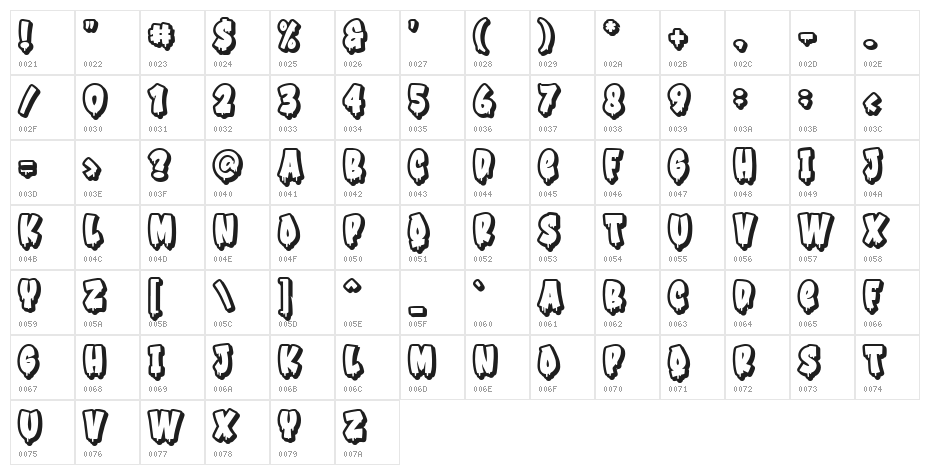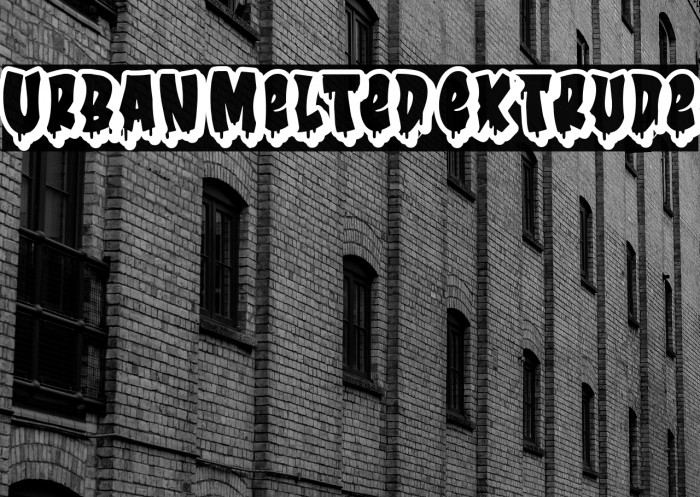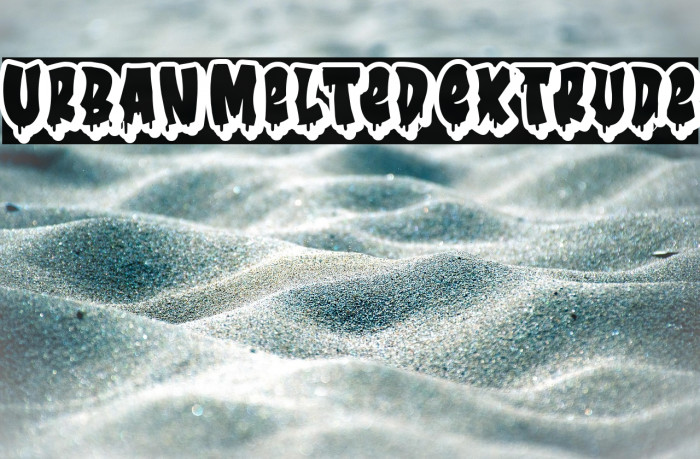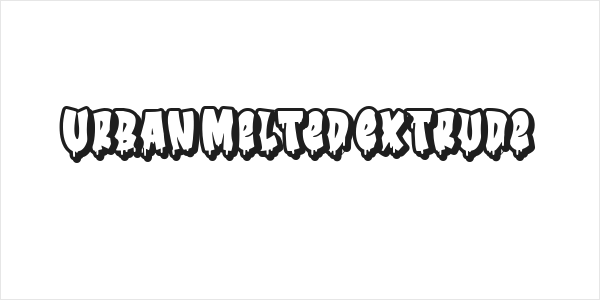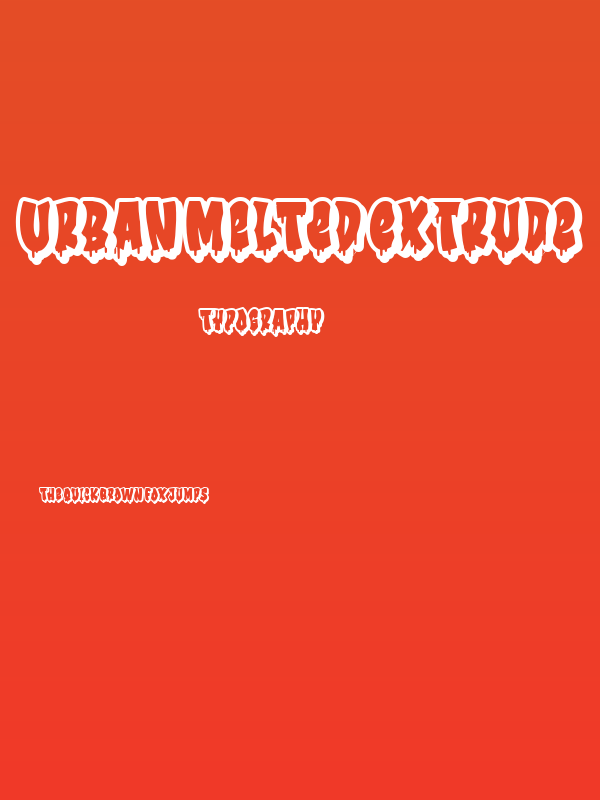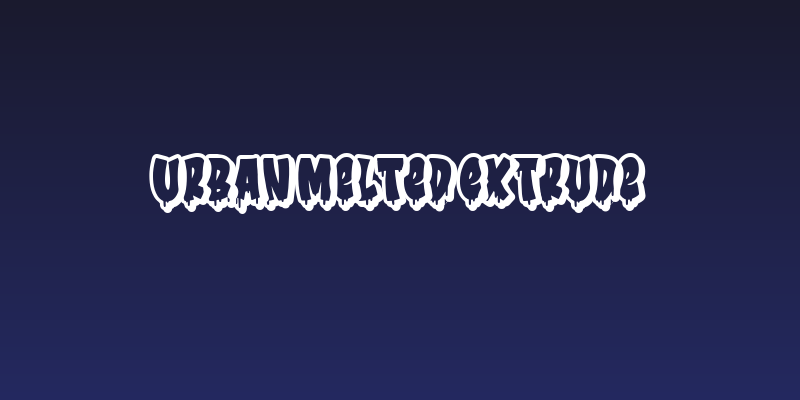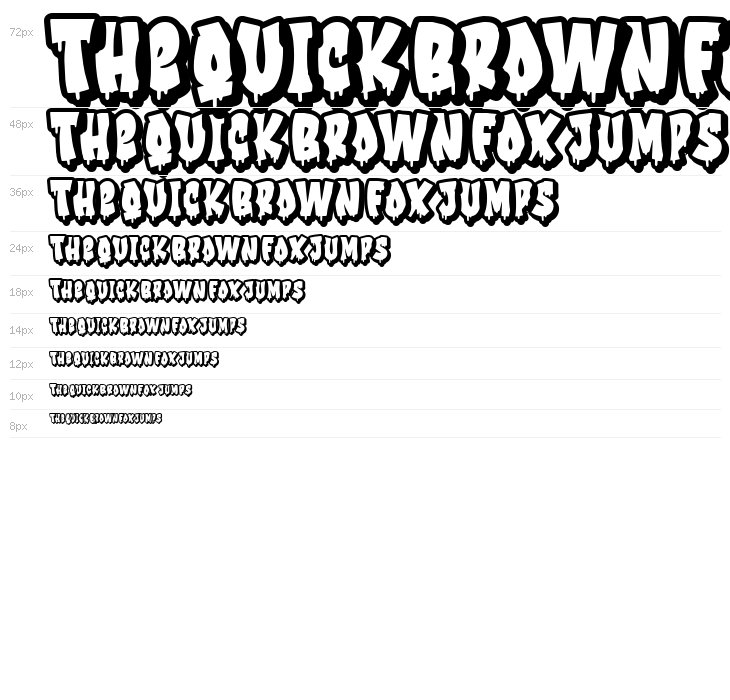
Urban Melted Extrude Font
Urban Melted Extrude Description
This font features a bold, graffiti-inspired style with a unique melted effect that gives each character a dynamic and fluid appearance. The letters are thick and heavily outlined, creating a strong visual impact. The dripping effect at the bottom of each character adds a playful and edgy touch, reminiscent of street art and urban culture. The font maintains a consistent weight and width throughout, ensuring readability while still delivering a distinctive aesthetic. The characters are tightly spaced, enhancing the compact and cohesive look of the text.
| Overall Style | Urban, Graffiti |
| Proposed Projects | Ideal for urban-themed designs, streetwear branding, music album covers, and event posters. |